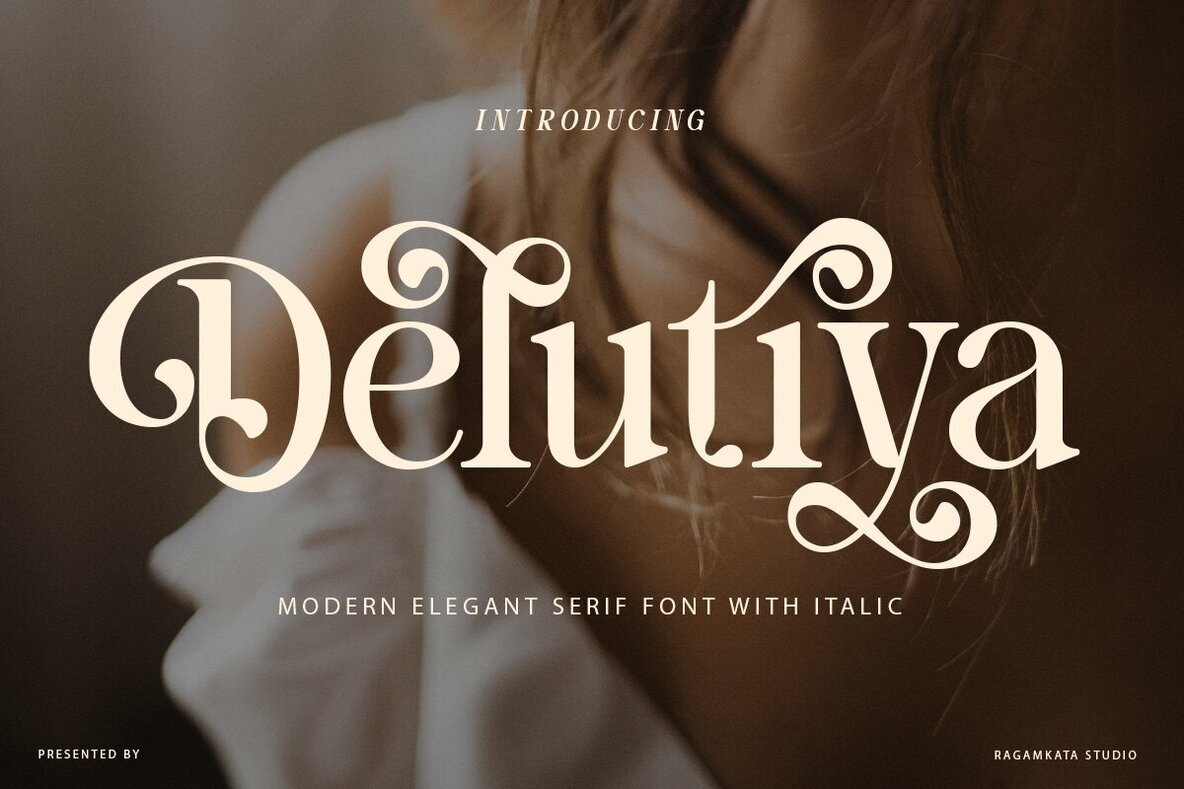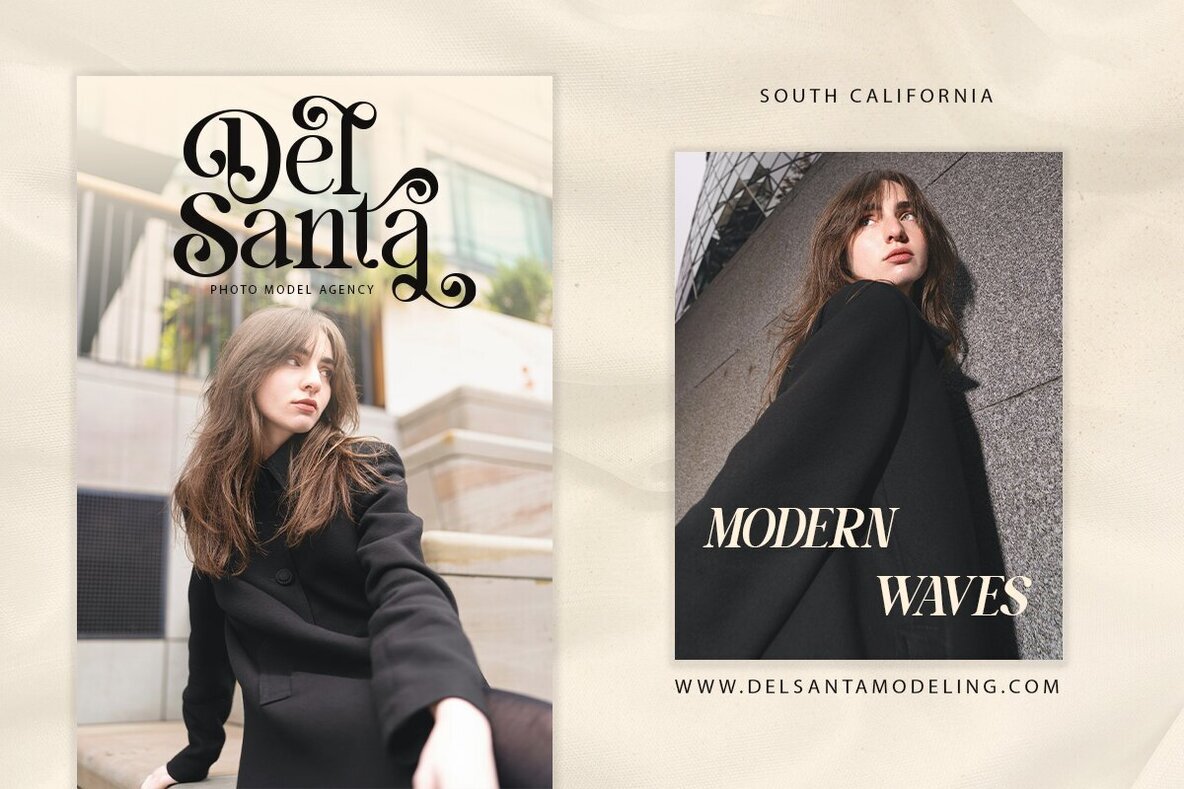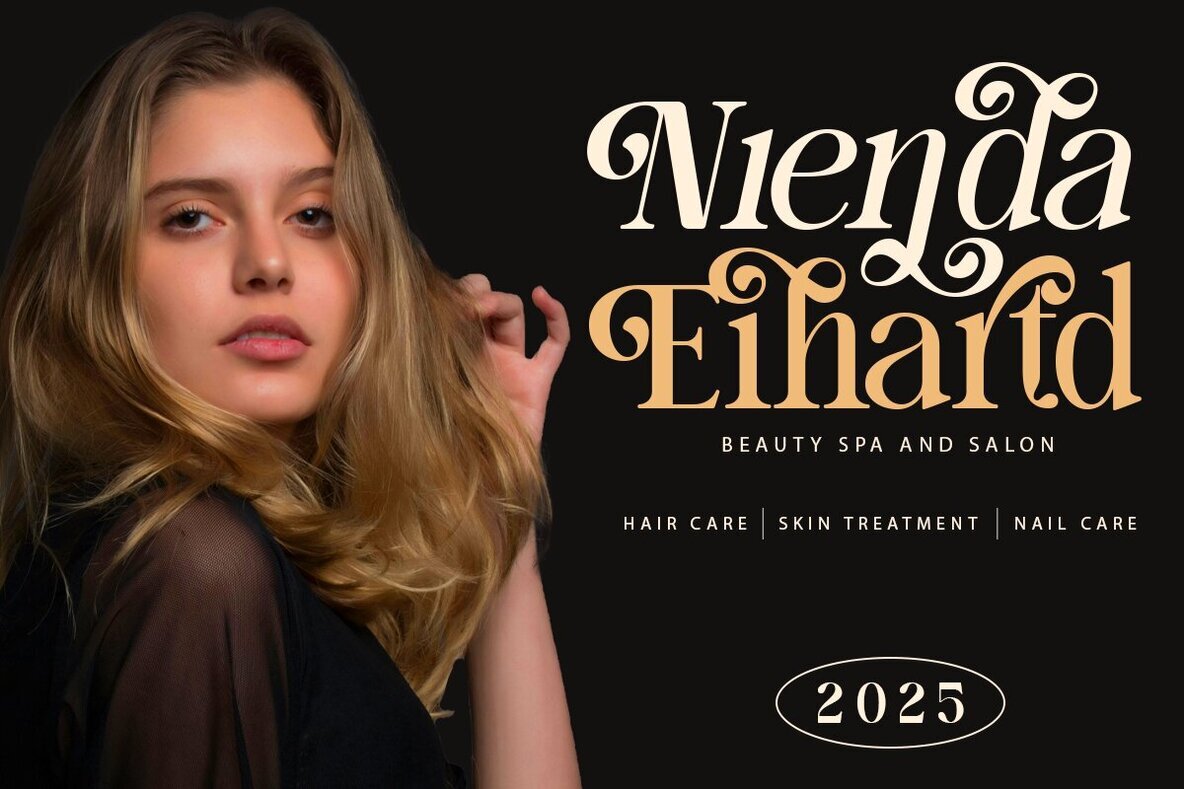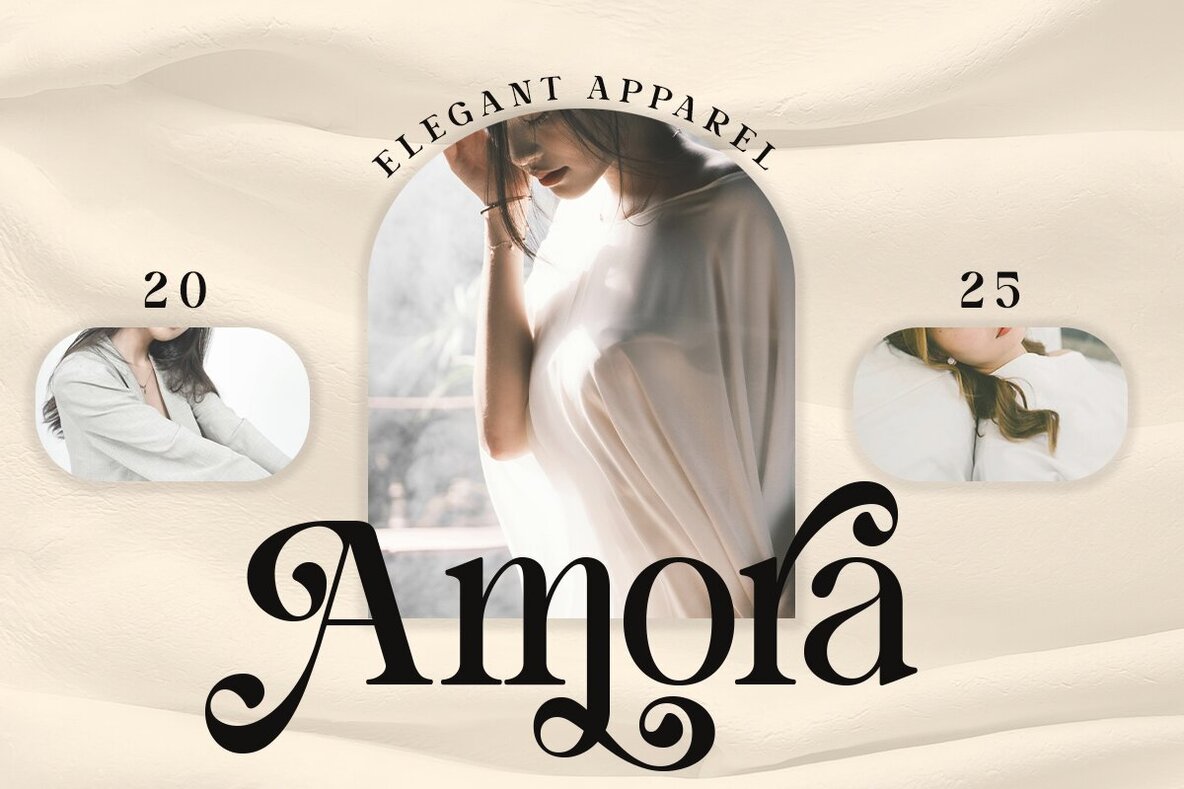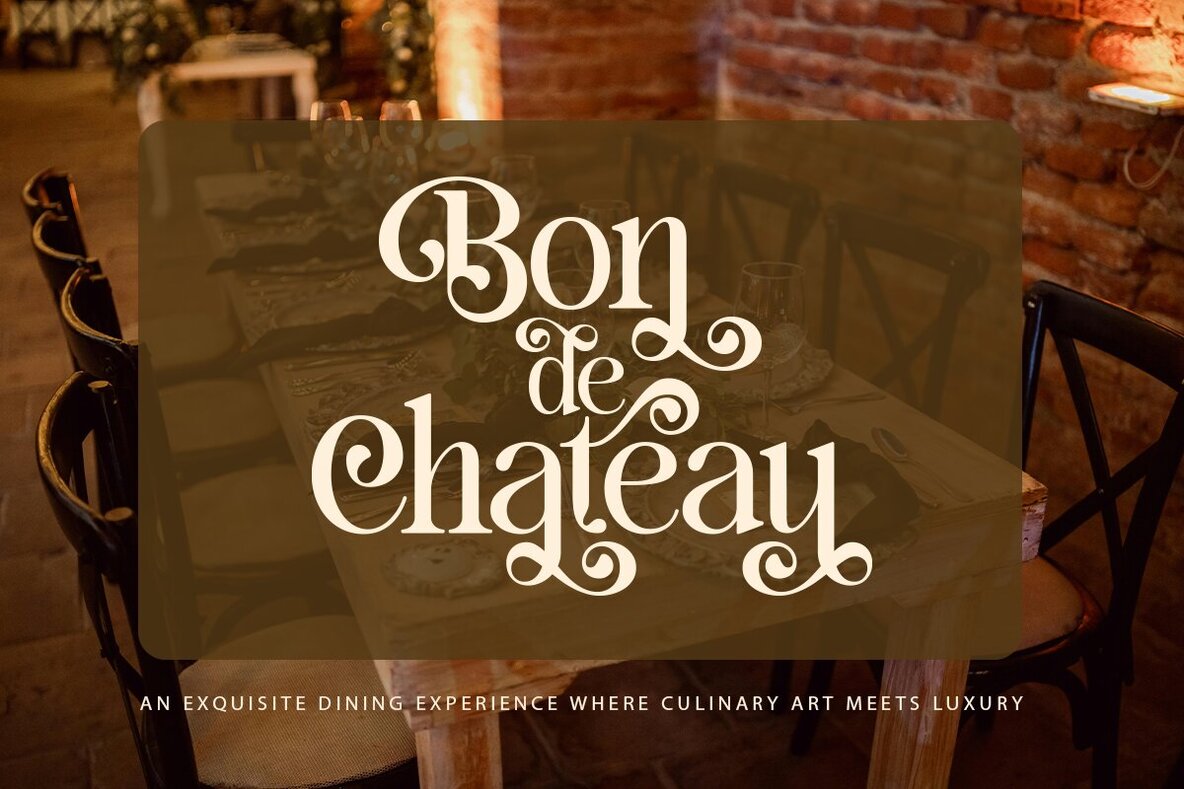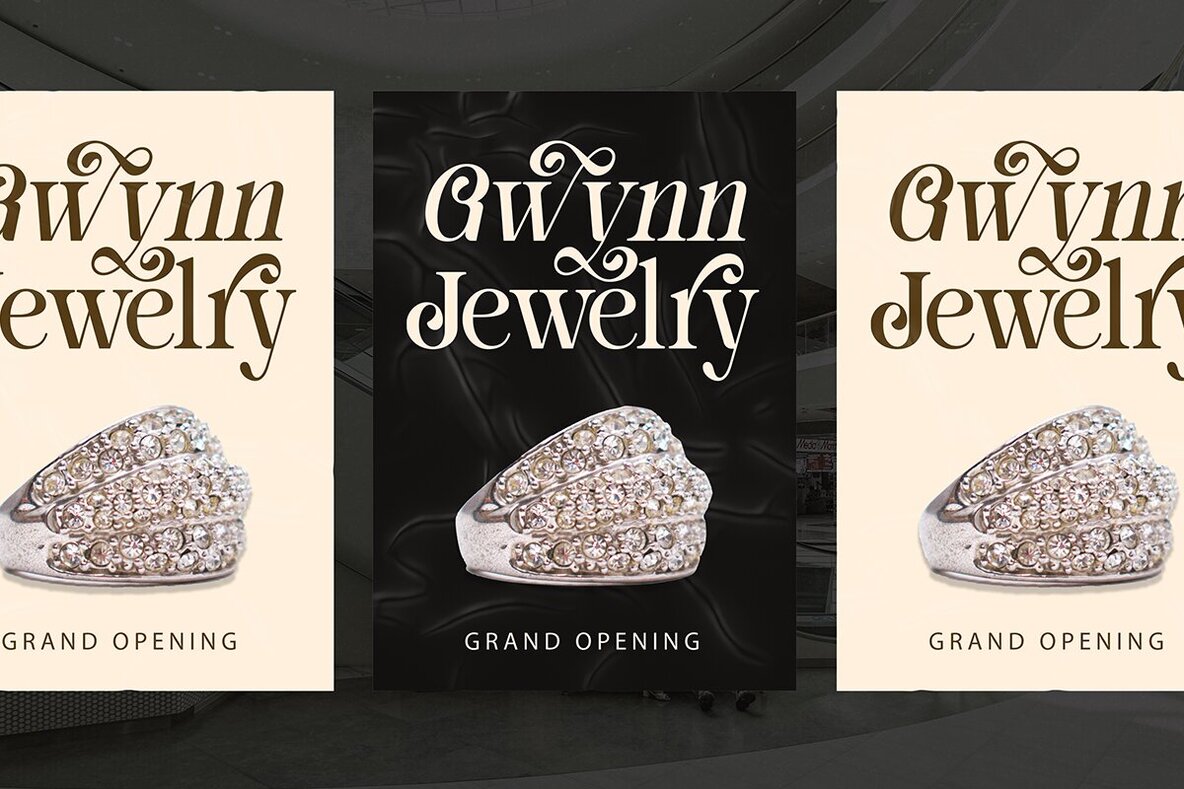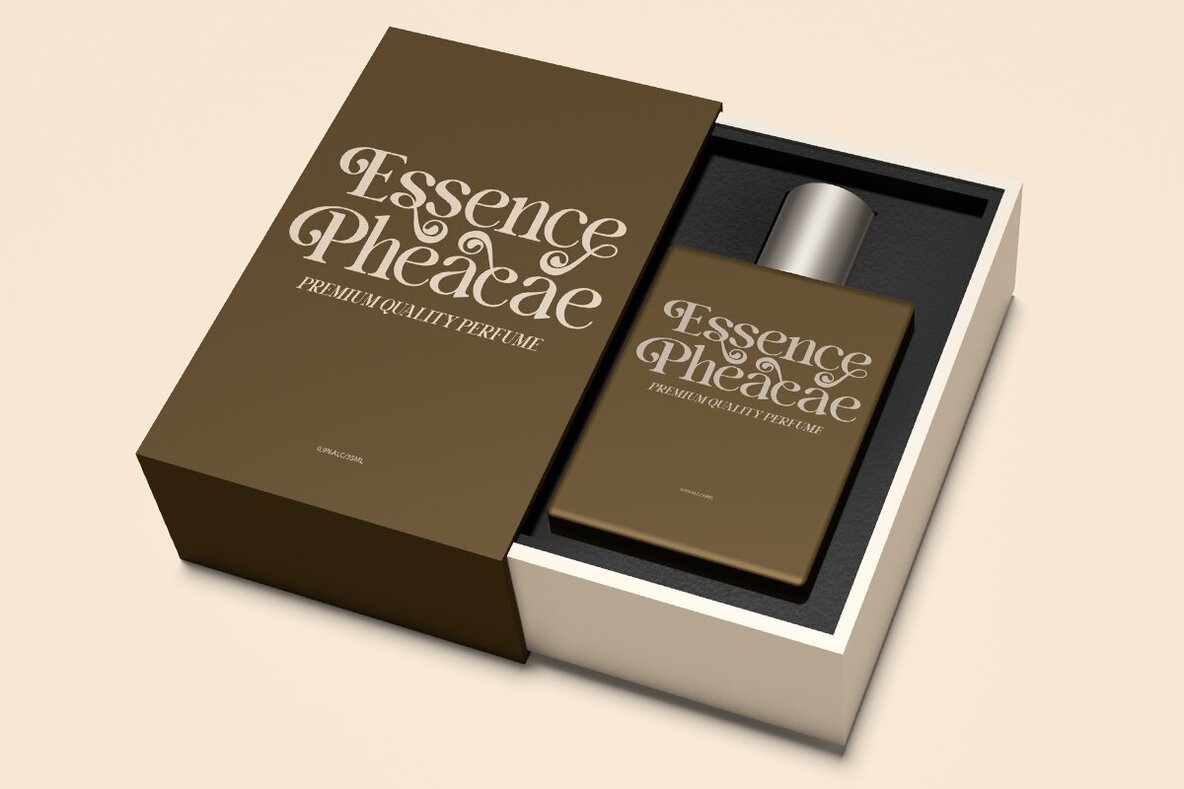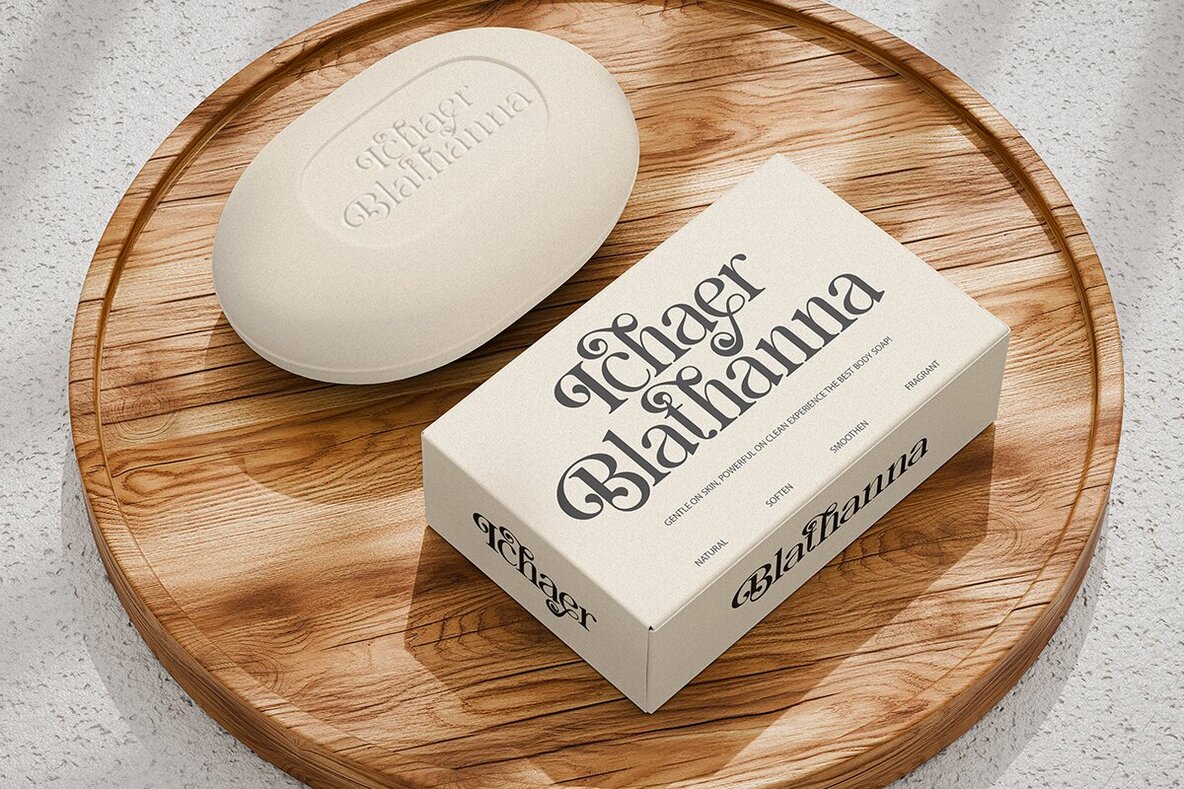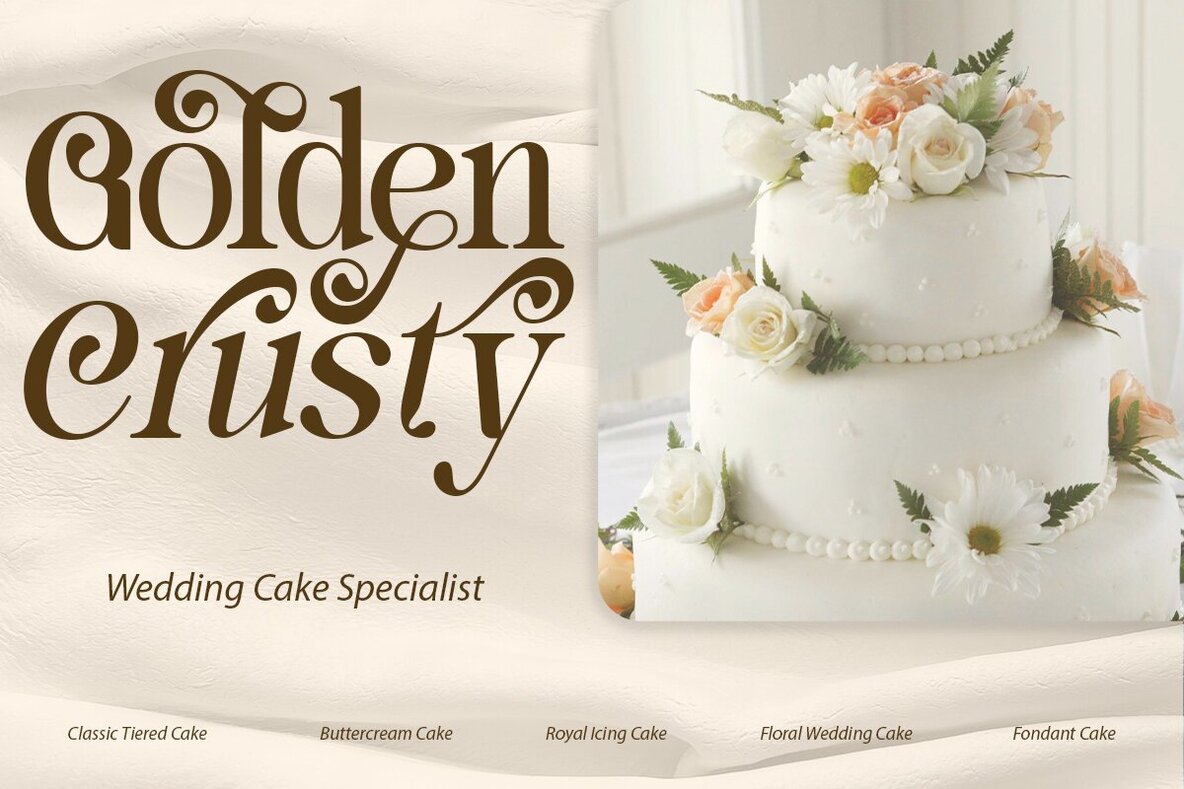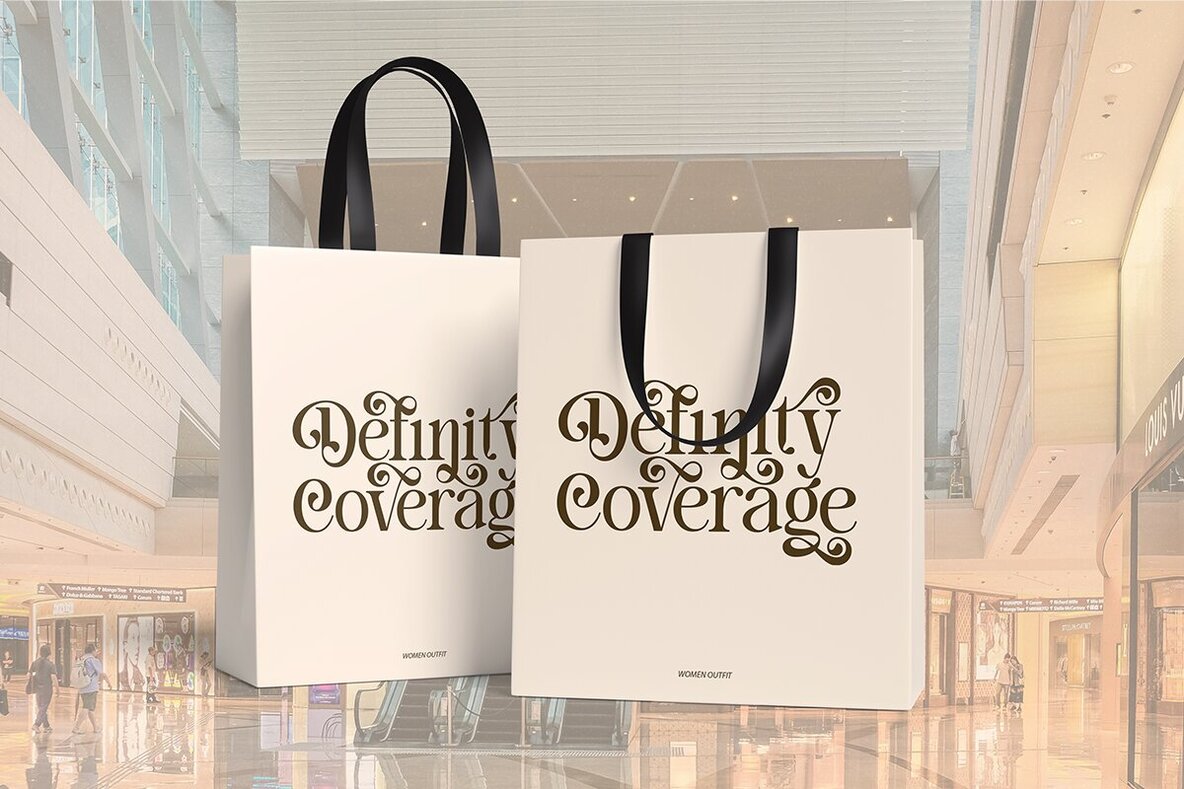
Delutiya Font
Delutiya is a modern, elegant serif font designed to bring sophistication to your projects. Featuring both regular and italic versions, Delutiya offers over 50 stylistic alternates that enhance the elegance of your designs. Its versatility makes it an ideal choice for various applications, from wedding invitations to logos, branding, website headers, and product labels.
This serif font family is not only visually appealing but also ensures readability, making it suitable for a wide range of design needs. Delutiya includes multilingual support, allowing it to accommodate diverse projects and audiences. With its combination of beauty, functionality, and extensive stylistic options, Delutiya is a valuable asset for any designer aiming to create refined and impactful work.